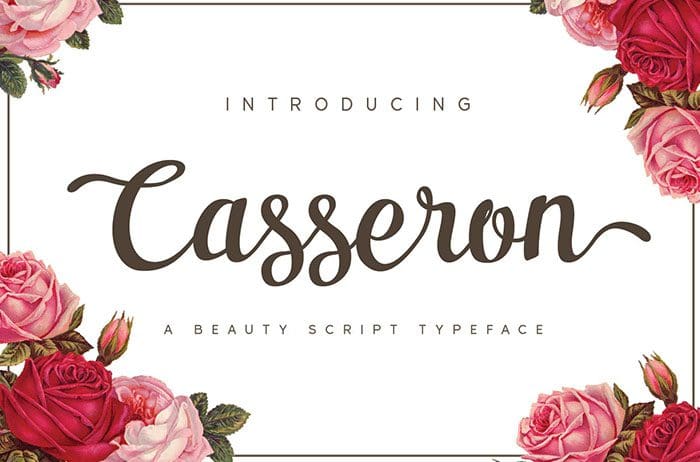
Casseron Script Font
Casseron Script is a beauty Script Font with adorable cursive alternative glyphs. It is perfect for branding projects, logo, social media posts, advertisements, product packaging, product designs, and more. Thanks to Patria Ari Typestudio for sharing this font! Take a look at this portfolio for more of his stunning fonts.